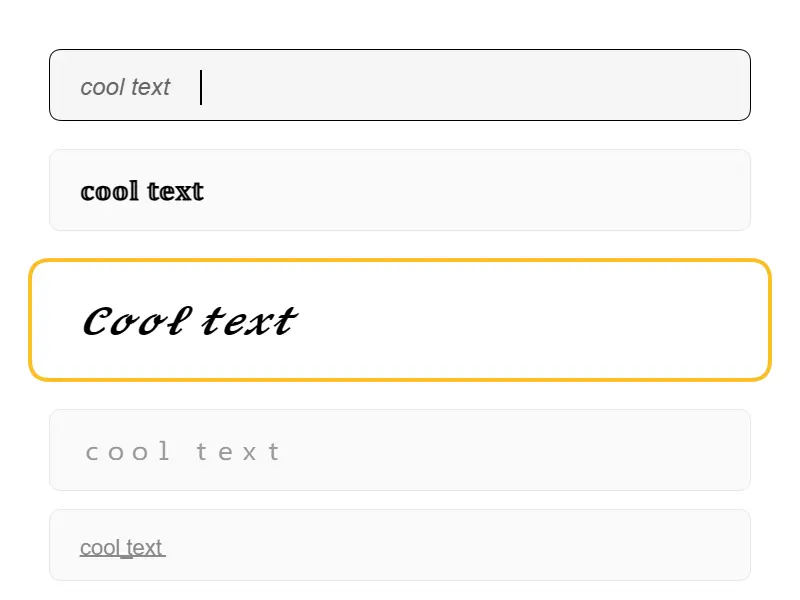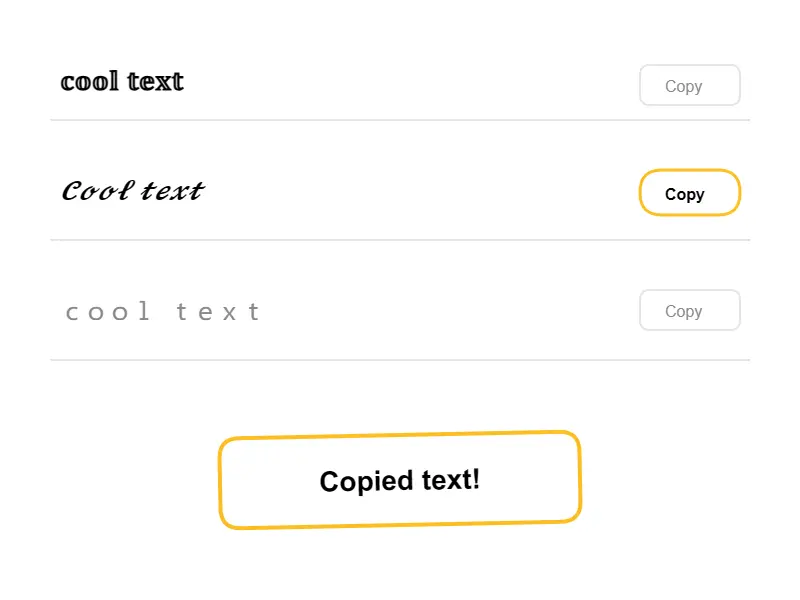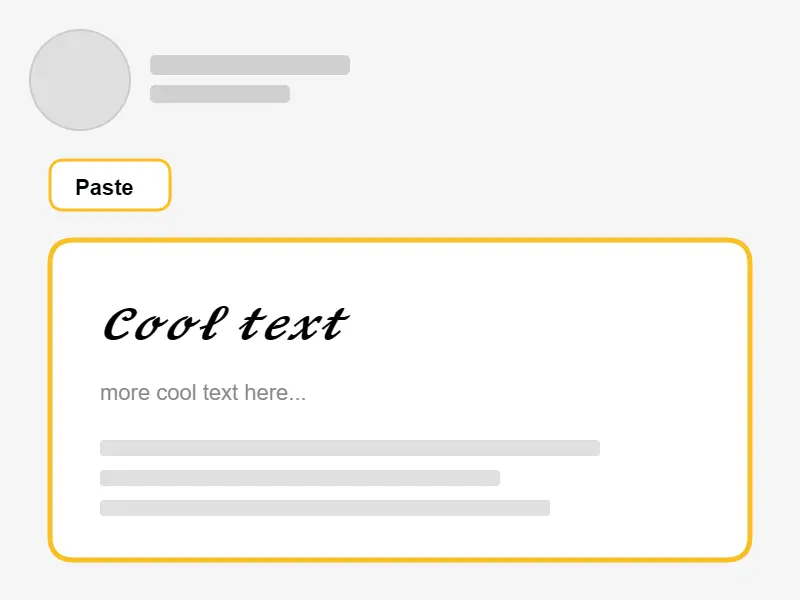
100+ chic, trendy, and aesthetic Unicode fonts for Instagram bios, TikTok usernames, Twitter/X, LinkedIn, and Discord — copy and paste instantly, all free.
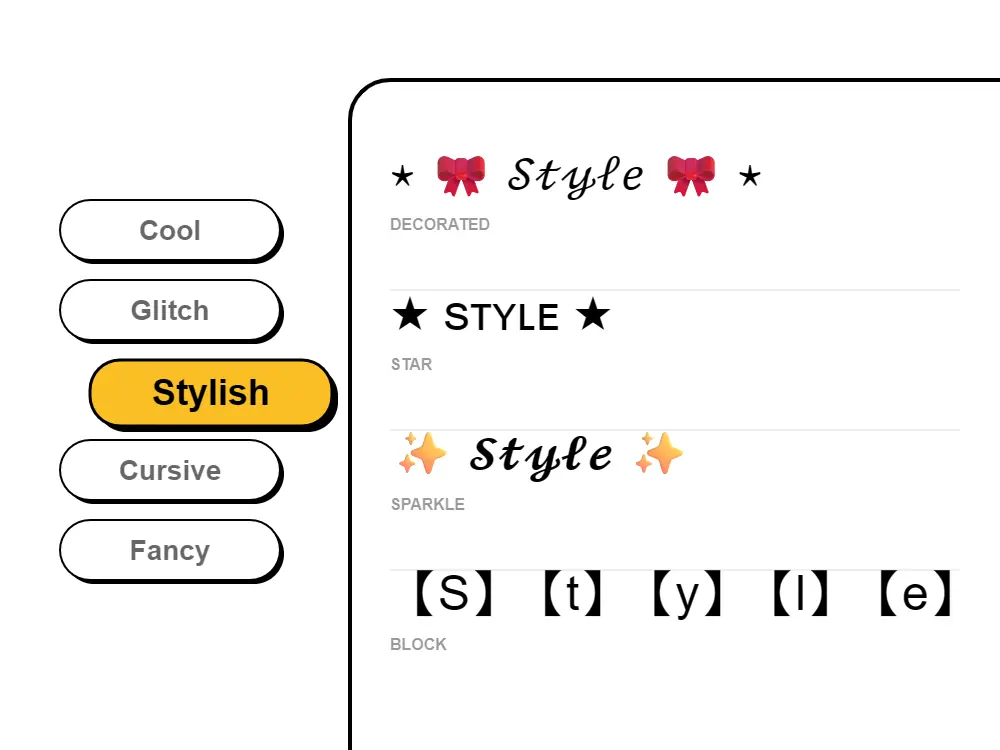
Stylish Font Style Illustration
Stylish Font Styles for
Every Platform.
Fontb's stylish fonts span 100+ Unicode styles across distinct visual registers. Small caps (ʟɪᴋᴇ ᴛʜɪs) give LinkedIn headlines and Instagram bios a clean, professional look. Italic script (𝐿𝑖𝑘𝑒 𝑡ℎ𝑖𝑠) creates the soft, editorial feel popular with lifestyle and fashion accounts. Mathematical bold (𝗟𝗶𝗸𝗲 𝘁𝗵𝗶𝘀) makes display names stand out on any platform. Double-struck letters (𝕃𝕚𝕜𝕖 𝕥𝕙𝕚𝕤) deliver the aesthetic look that trends on TikTok and Instagram. Monospace (𝙻𝚒𝚔𝚎 𝚝𝚑𝚒𝚜) suits tech and creator profiles. All styles generate simultaneously as you type — compare every option and copy the one that fits your brand in one tap.
Generate unlimited categories.stylish text styles and copy-paste them instantly for your bio, captions, and comments to make your profile stand out.
Stylish fonts are the finishing touch on any social media presence — the visual signal that communicates taste, intentionality, and personality before anyone reads a word. Our stylish fonts generator gives you 100+ chic, contemporary, and on-trend Unicode text styles in one place: aesthetic script, elegant small caps, bold typographic styles, double-struck letterforms, and modern decorative variants that make Instagram bios look curated, TikTok usernames feel like a brand, Twitter/X display names carry polish, Discord profiles stand out, and LinkedIn headlines project professionalism. Whether you're an influencer, creative, entrepreneur, or simply want your bio to look intentional — stylish fonts from Fontb are free, instant, and work everywhere.
Every stylish font here uses Unicode characters, making them completely platform-agnostic. Copy any stylish font and paste it directly into your Instagram bio, TikTok username, Twitter/X display name, Discord nickname or server name, LinkedIn headline, WhatsApp status, YouTube channel name, or Pinterest bio — it displays identically on every device and browser, exactly as styled. No font files to install, no special apps, no account needed. One important note: stylish Unicode fonts are made of special characters, not standard A-Z letters — which means screen readers for visually impaired users may not read them as intended. Use stylish fonts for decorative display text (usernames, bios, headings) rather than body paragraphs where accessibility matters.
Why Do Stylish Fonts Work on Every Platform?
Stylish fonts from this generator are not font files — they are Unicode characters. The Unicode standard, which every phone, browser, and operating system uses, includes dozens of complete alphabets that look like different stylistic treatments: elegant script letters, small caps, double-struck (blackboard bold) letters, bold variants, italic forms, and more. When you paste a stylish font into Instagram, TikTok, Discord, LinkedIn, or any other platform, those apps receive standard Unicode text — it just happens to look stylish. No font file is transferred, no special rendering engine is needed, and the platform doesn't need to support any custom fonts. The stylish appearance is built into the character itself at the Unicode level, which is why stylish fonts display identically on iPhone, Android, Windows, and Mac. Compatibility note: most current devices support all stylish Unicode fonts without issue. If a stylish character appears as a small box (called 'tofu') on an older device, simply switch styles — each variant uses a different Unicode block, and most display correctly on all modern smartphones.
What are stylish fonts and how do they work?
Stylish fonts are Unicode text characters that look visually polished and distinct from standard text — elegant small caps, aesthetic script, bold typographic styles, double-struck letters, italic forms, and dozens of chic decorative variants. They work because the Unicode standard, used on every phone and computer on earth, includes multiple complete alphabets that look like different stylistic treatments. Our stylish fonts generator converts your normal text into these Unicode variants instantly — no font file, no app, no account needed. The styled result copies and pastes into any platform that supports standard text.
Do stylish fonts work on LinkedIn headlines and Twitter/X display names?
Yes — stylish Unicode fonts work on both LinkedIn and Twitter/X. For LinkedIn, paste a stylish font into your Name or Headline field to stand out in search results and connection feeds. For Twitter/X, paste into your display name or bio via Edit Profile. Small caps and bold Unicode are the most professional-looking stylish styles for LinkedIn, while aesthetic script and italic styles work well for Twitter/X bios. Both platforms render Unicode characters natively on all devices.
What are the most popular stylish font styles right now?
The most-used stylish font styles in 2026 are: Small Caps (ʟɪᴋᴇ ᴛʜɪs) — professional and clean, popular for LinkedIn and Instagram bios; Mathematical Bold (𝗟𝗶𝗸𝗲 𝘁𝗵𝗶𝘀) — strong, versatile, works on every platform; Italic Script (𝐿𝑖𝑘𝑒 𝑡ℎ𝑖𝑠) — elegant and soft, trending among lifestyle and fashion accounts; Double-Struck / Blackboard Bold (𝕃𝕚𝕜𝕖 𝕥𝕙𝕚𝕤) — distinctive and aesthetic, popular on TikTok; Monospace (𝙻𝚒𝚔𝚎 𝚝𝚑𝚒𝚜) — clean, tech-forward look popular in creator bios. All are available for free in the stylish fonts generator above.